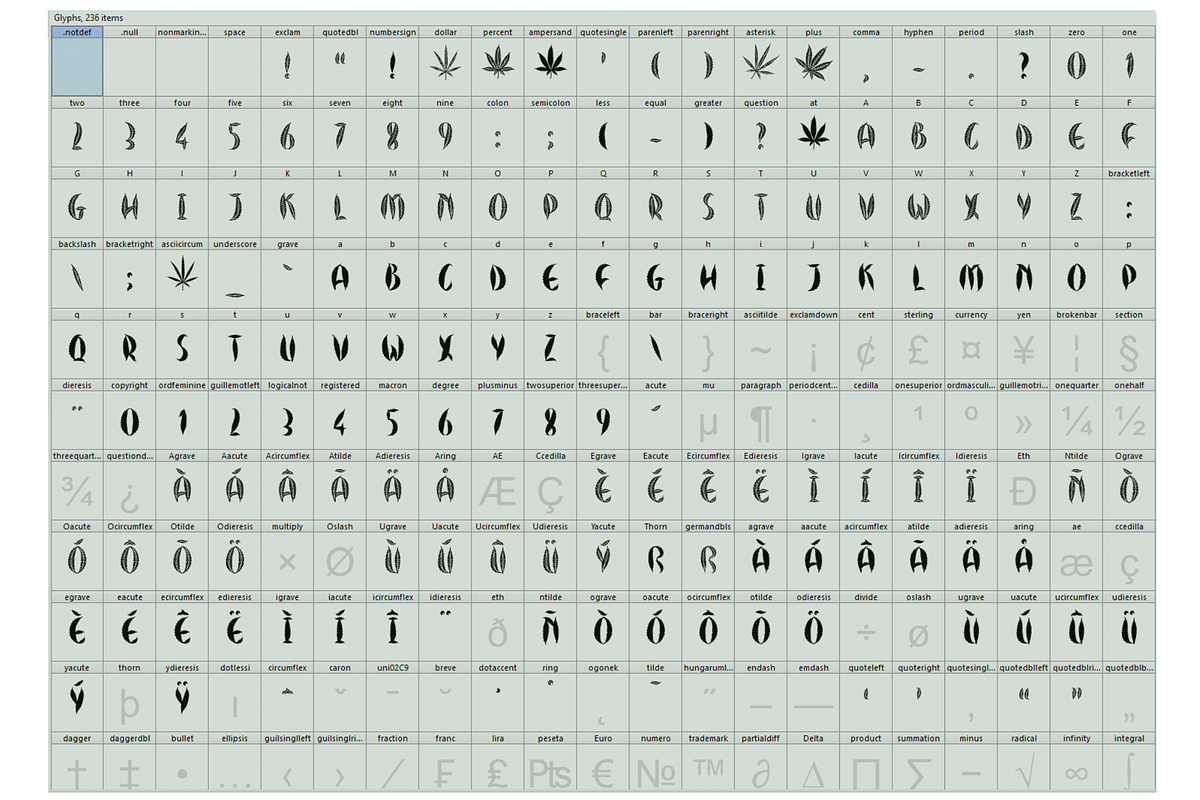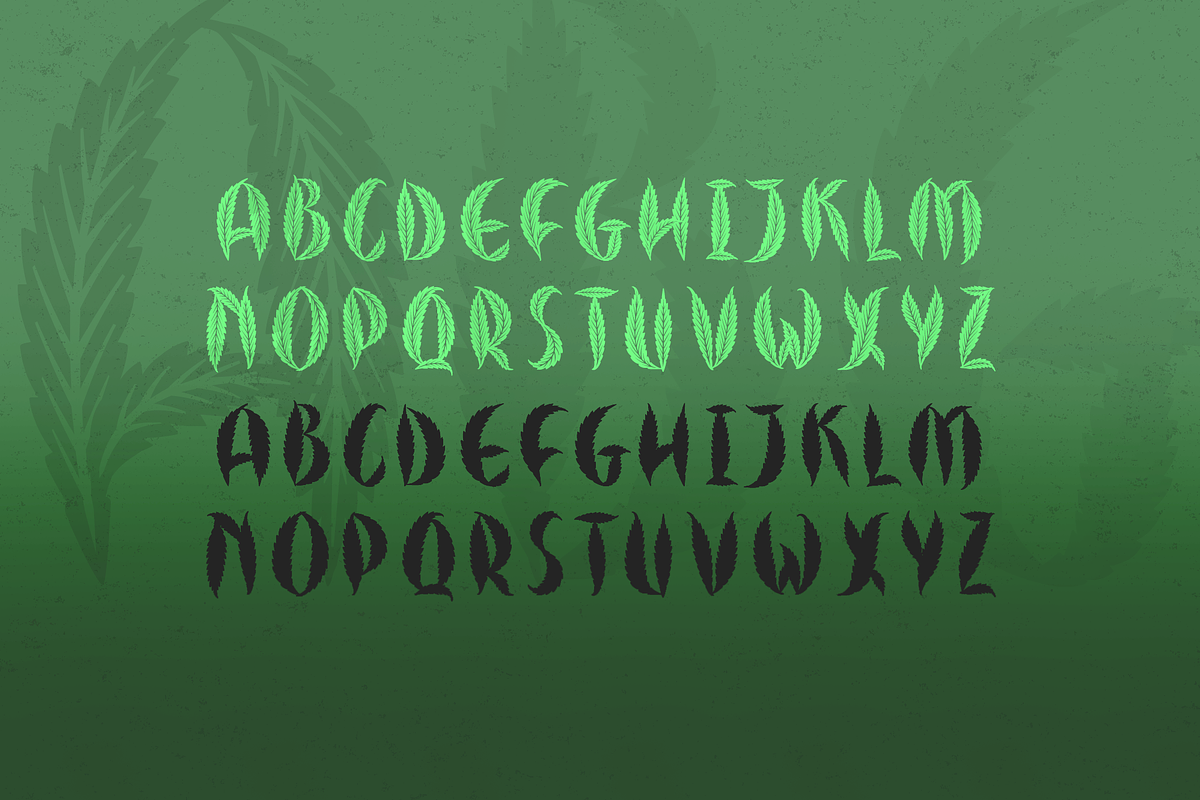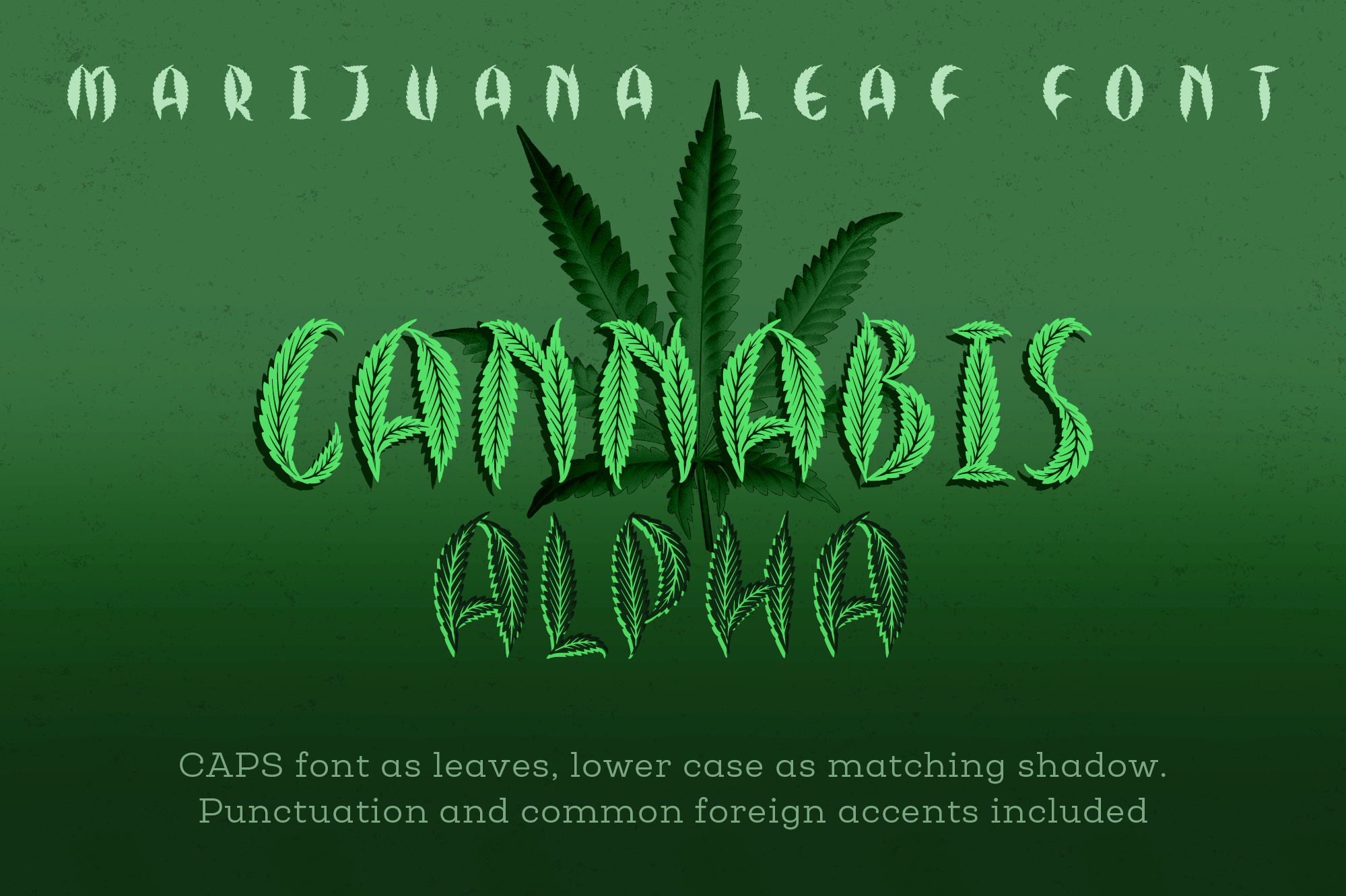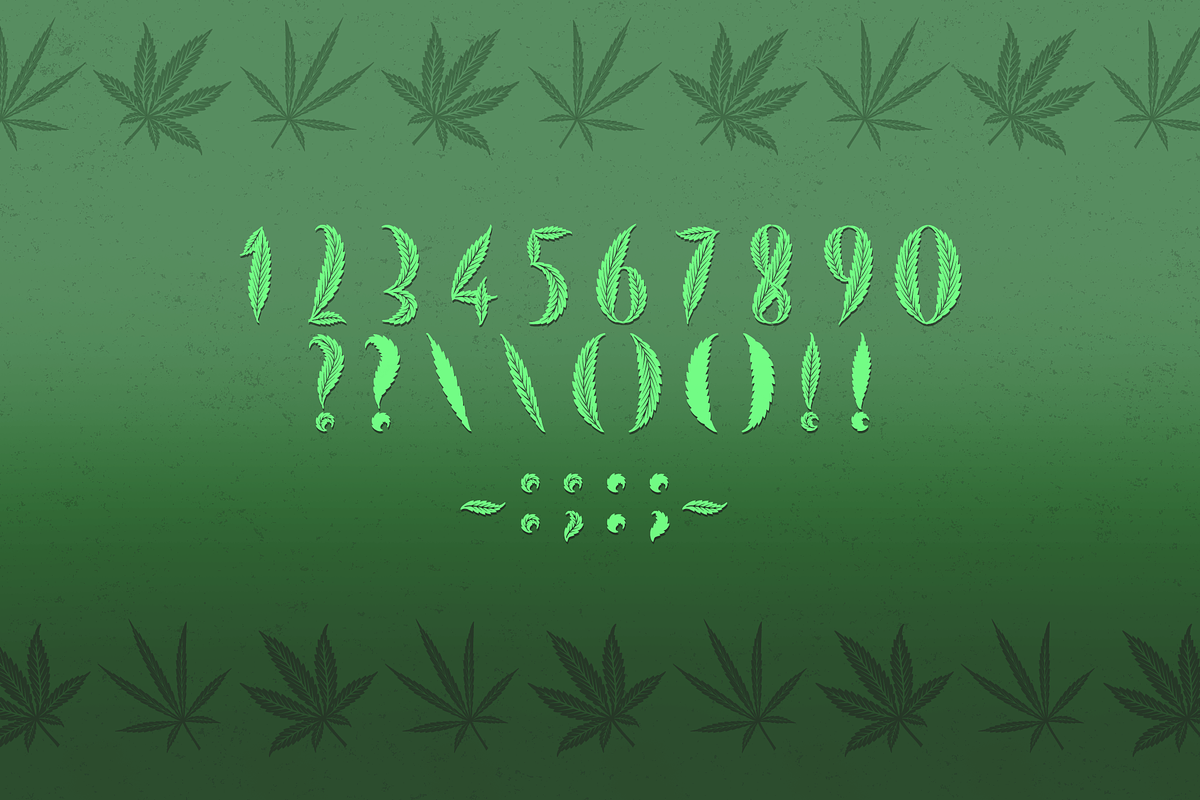
Cannabis Leaf Font - Hemp Leaf
Cannabis Alpha Font lends itself to the more sophisticated theme related to medical or recreational cannabis/marijuana, or to the hemp industry. This is a CAPS display font, in OTF format and WOFF format, with multiple extras including the common foreign accents, also has a set of indica and sativa shaped leaves. These enable you to type borders or shapes easily in any document. If you need any other specific characters I am happy to add them.